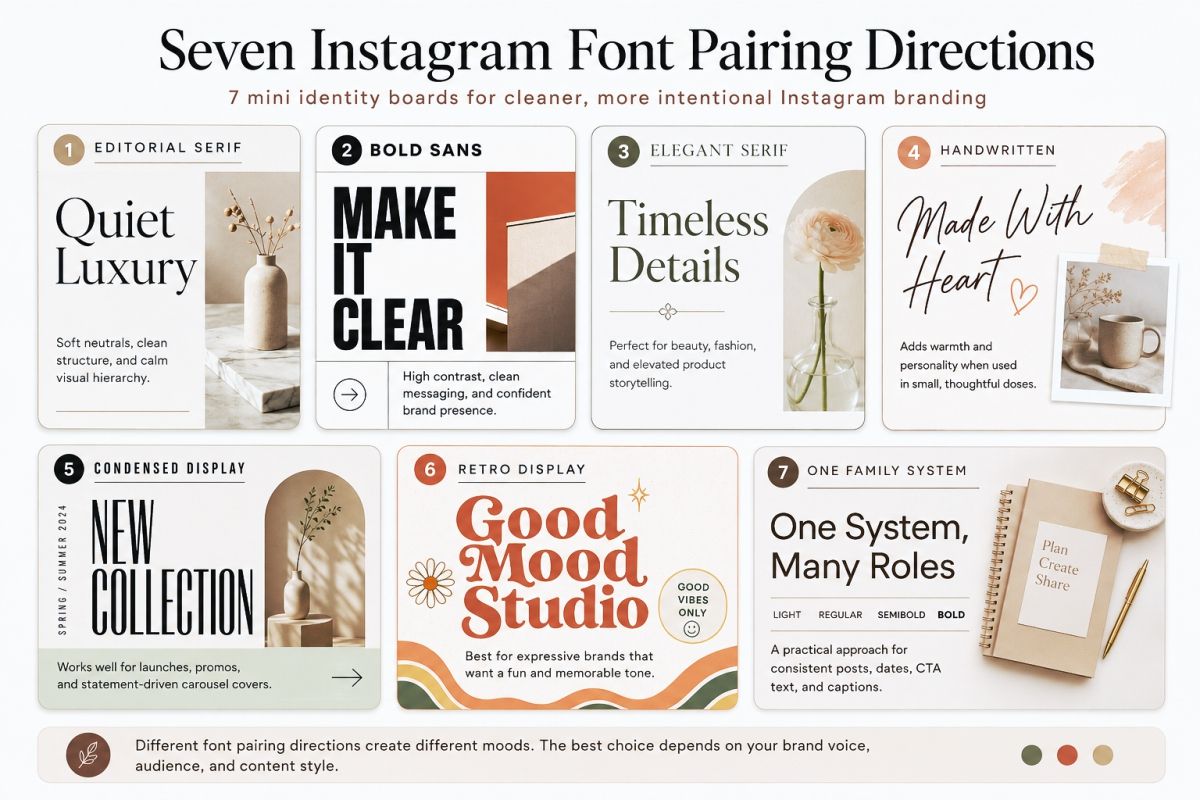
Font Pairing for Instagram Posts: Clean Looks for Better Visual Branding
Choosing a font pairing for Instagram posts is easy when you only have one post to design.
You pick a beautiful display font. Add a simple sans serif underneath. Adjust the spacing. It looks good.
Then you create a carousel.
A promotion.
A quote.
A testimonial.
A product announcement.
Suddenly, that perfect pairing starts behaving very differently.
This is why I think Instagram typography should be treated as a small system rather than a one-post styling decision.
Your fonts need to look good together, of course. But more importantly, they need clear jobs. They should help people recognize your content, understand the hierarchy quickly, and move from one post format to another without making your feed feel like five different brands.
In this guide, I’ll show you how to build that kind of system.
Start With Font Roles, Not Font Names
It is tempting to begin by browsing fonts.
I prefer to start somewhere else.
Before choosing any typeface, list the jobs your Instagram typography needs to handle.
For most brands, those jobs can be grouped into three roles.
Hero Font
This is the font with the strongest personality.
Use it for things such as:
• Main headlines
• Short statements
• Campaign names
• Product names
• Important numbers
• Short quotes
The hero font does not need to appear everywhere.
In fact, it usually feels more distinctive when you use it selectively.
Supporting Font
This font helps build structure around the hero.
You might use it for:
• Subheadings
• Short explanations
• Carousel titles
• Secondary information
• Supporting captions inside graphics
Utility Font
The utility role is all about clarity.
It handles information people need to understand quickly:
• Dates
• Prices
• Labels
• Small text
• Calls to action
• Product details
• Slide numbers
You do not always need three separate typefaces.
Usually, you do not.
A supporting sans serif can also become your utility font. That leaves you with only two typefaces in the entire system.
That is often enough.
If you want to explore the wider logic behind combining typefaces, start with my guide to font pairing ideas. The same principles apply beyond Instagram and make a useful foundation for branding, print, packaging, and social media.
Good Font Pairing Is Really About Controlled Contrast
Two fonts should not look identical.
But they should not feel unrelated either.
The sweet spot sits somewhere in between.
I think of this as controlled contrast.
You can create contrast through:
• Serif vs sans serif
• Bold vs light
• Wide vs condensed
• Structured vs handwritten
• Formal vs casual
• Geometric vs organic
• High contrast vs monoline
• Uppercase vs lowercase
You rarely need all of these differences at once.
For example, imagine a dramatic high-contrast serif paired with a brush script.
The serif has personality.
The script has personality too.
Now both fonts are trying to lead.
Compare that with the same serif paired with a quiet sans serif.
The serif creates the mood.
The sans serif organizes the information.
Much cleaner.
This principle also explains why using too many expressive typefaces can quickly weaken a design. If you want to see other typography problems that often create visual clutter, my guide to bad typography examples covers several common mistakes worth avoiding.
Font Pairing For Instagram Posts Clean Looks For Better Visual Branding Preview2  Controlled Font Contrast Map
Seven Font Pairing Directions for Instagram Posts
You do not need one universal font combination.
Different brands need different types of tension.
Instead of copying a specific pairing, I recommend choosing a pairing direction first.
Here are seven useful directions.
1. Editorial Serif + Clean Sans Serif
This combination gives you a strong contrast between personality and function.
Use the serif for:
• Headlines
• Quotes
• Product names
• Campaign titles
Use the sans serif for:
• Body copy
• Dates
• Labels
• Slide numbers
• Calls to action
It works particularly well for:
• Fashion
• Beauty
• Interiors
• Photography
• Lifestyle brands
• Creative businesses
The key is to let the serif do the emotional work.
If it already has dramatic strokes, elegant terminals, or expressive italics, the supporting sans serif should stay relatively quiet.
2. Bold Sans Serif + Neutral Sans Serif